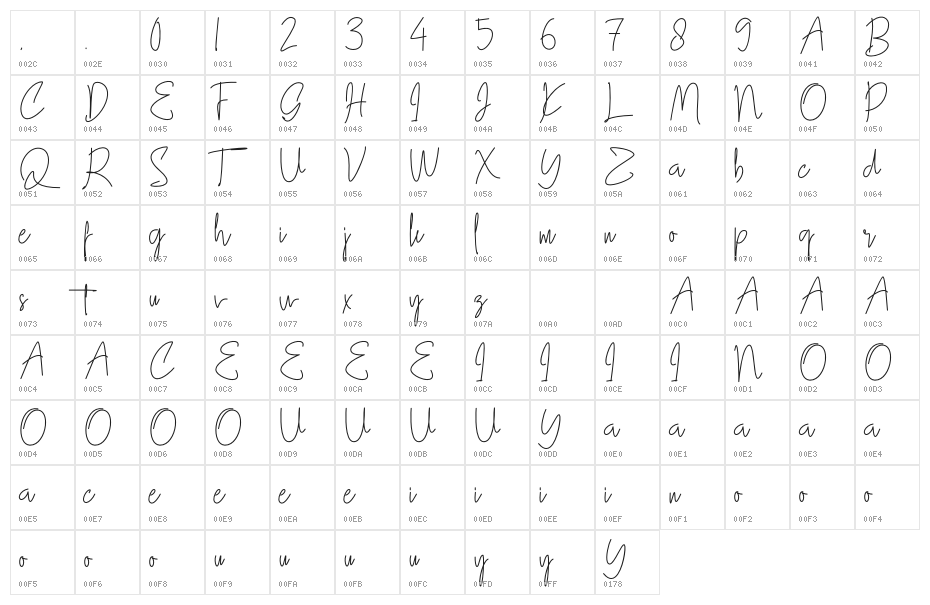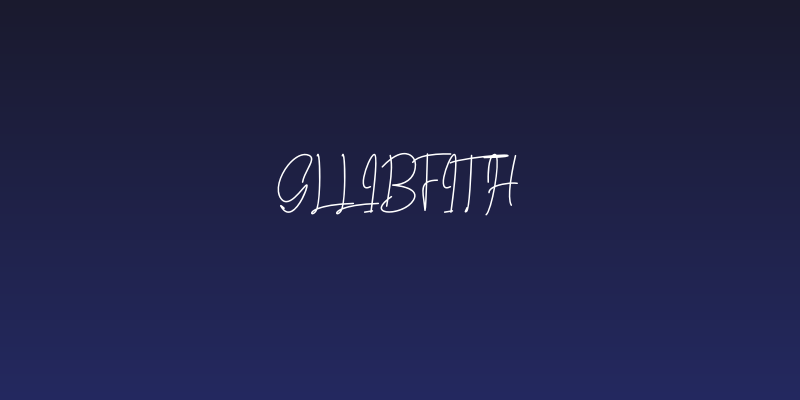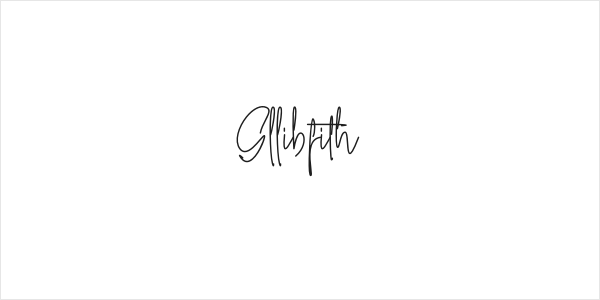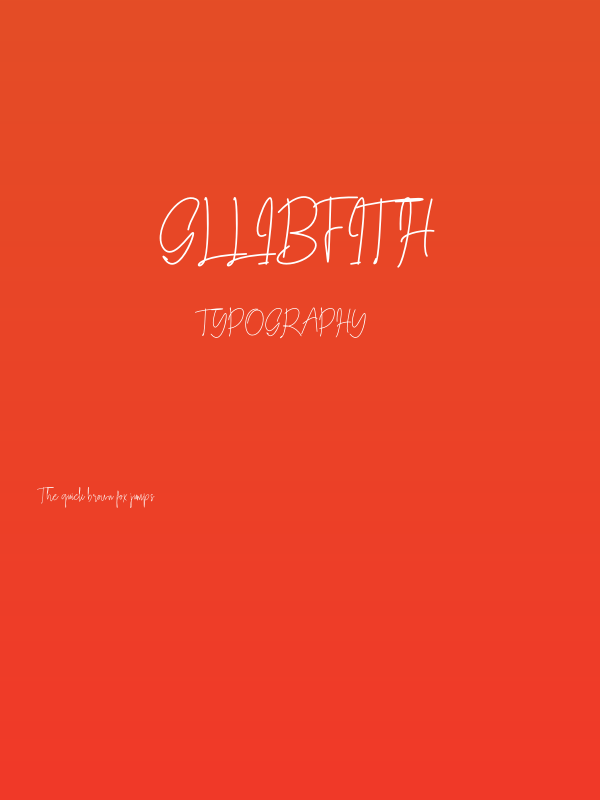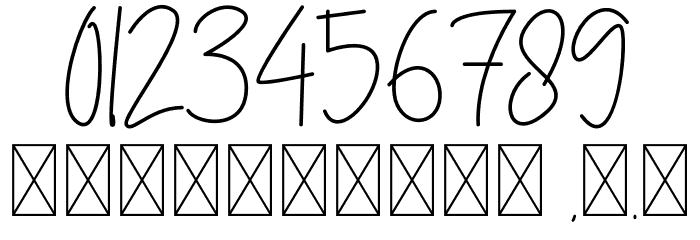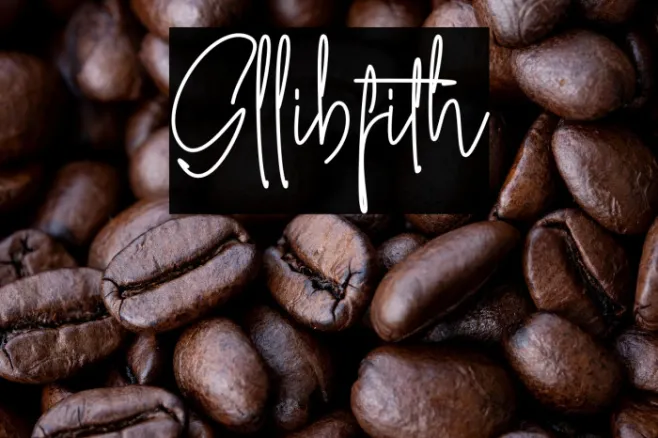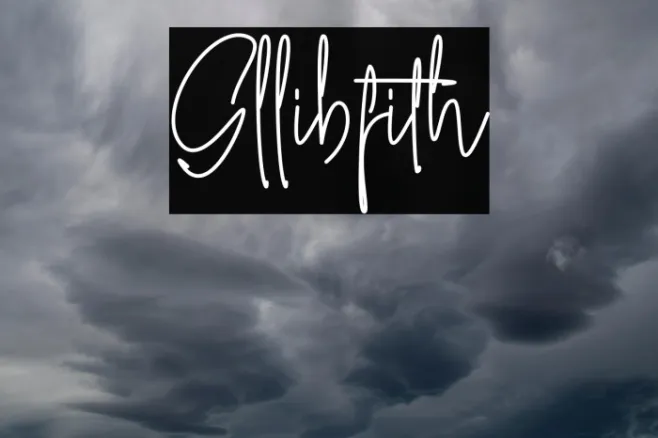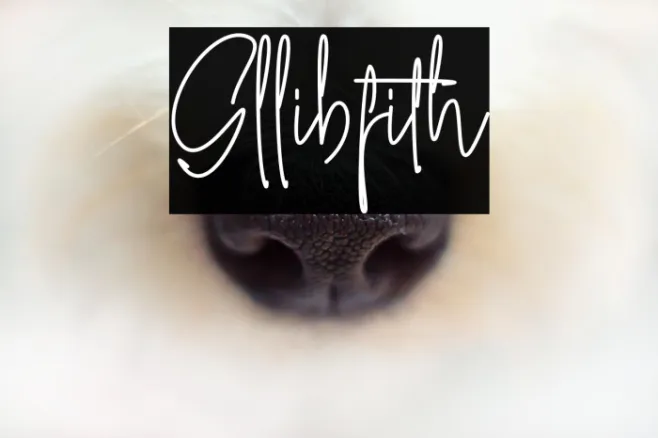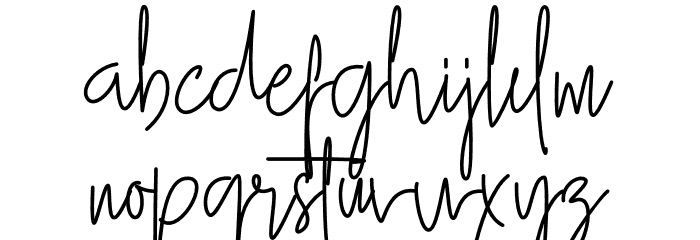
Gllibfith Font
Gllibfith Description
This font features a playful and casual handwritten style, characterized by its fluid and dynamic strokes. The uppercase letters are tall and slightly narrow, with a consistent slant that adds a sense of motion. The lowercase letters maintain a similar slant, with rounded forms that enhance the font's approachable and friendly appearance. The numerals are clear and legible, matching the overall style with their smooth curves and balanced proportions. This font's unique personality is further highlighted by its special characters, which integrate seamlessly with the rest of the character set.
| Proposed Projects | Ideal for greeting cards, invitations, personal branding, and social media graphics. |